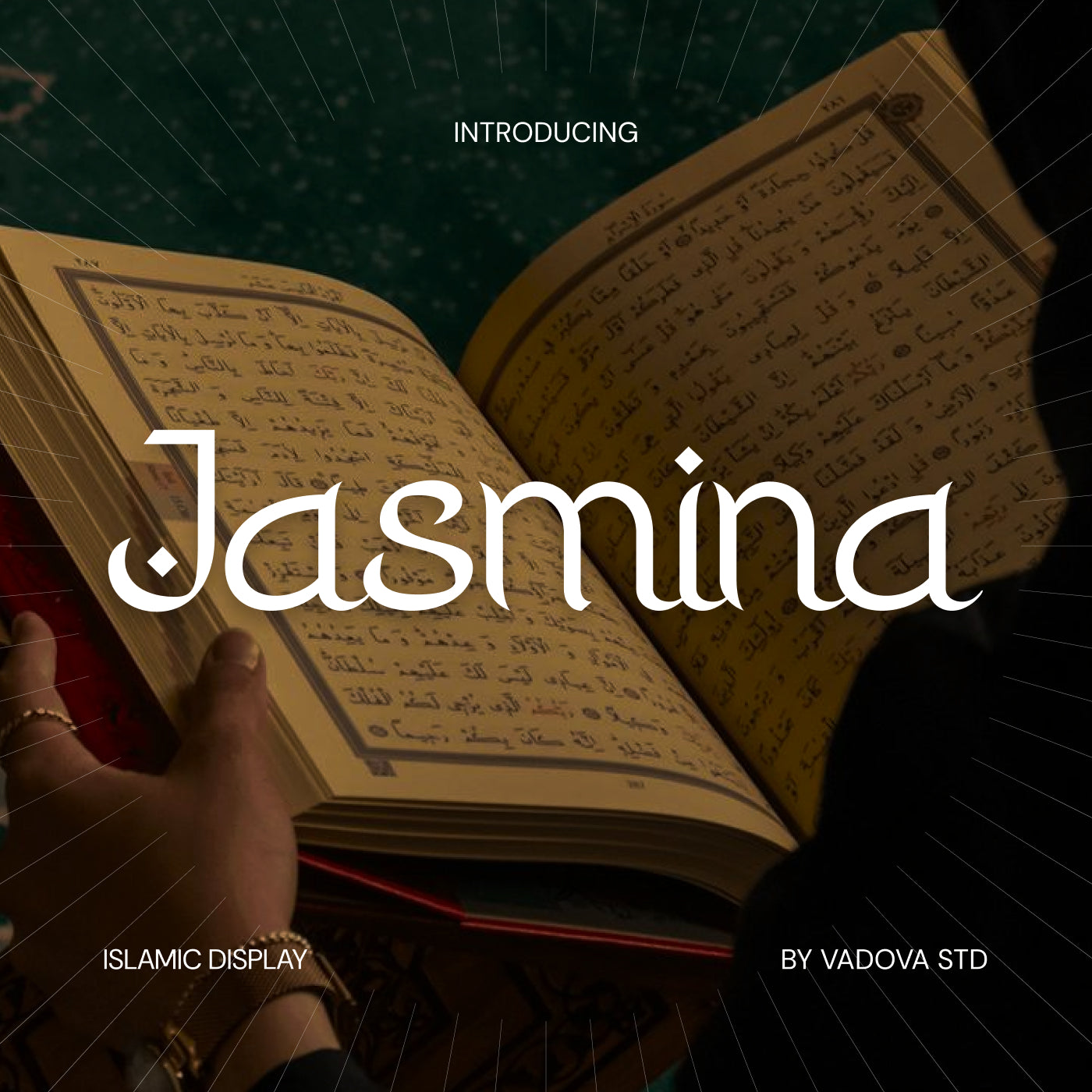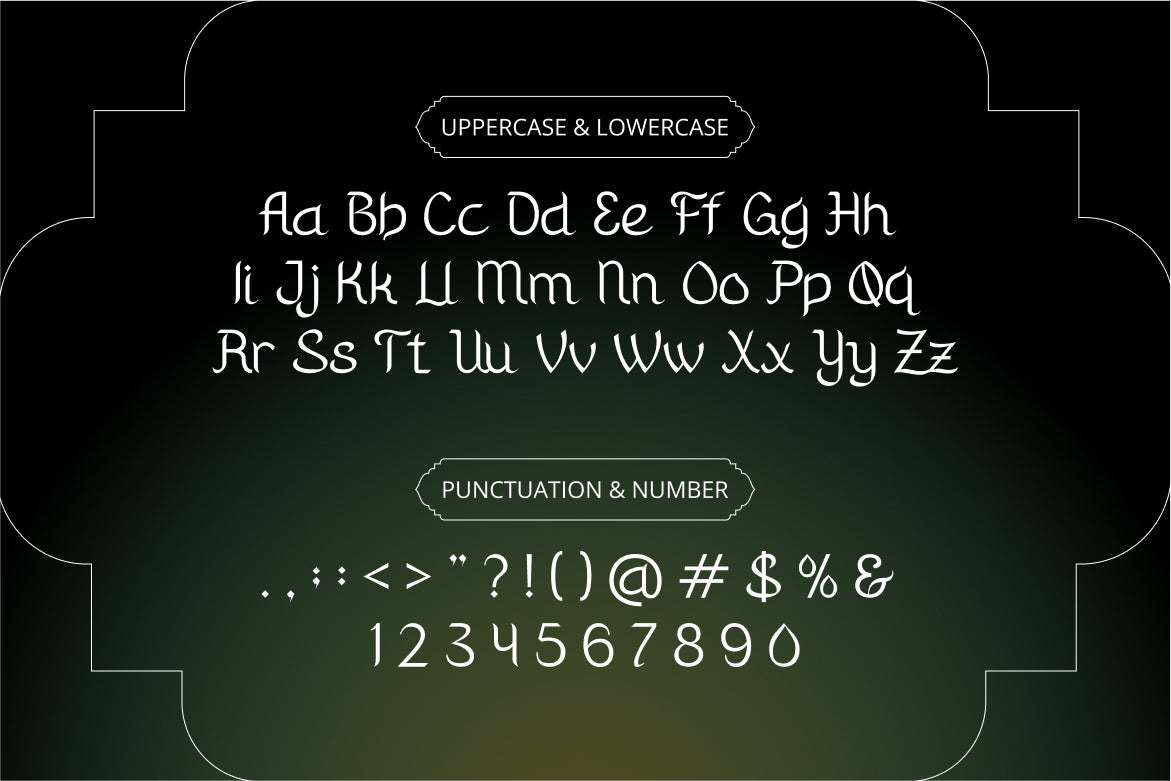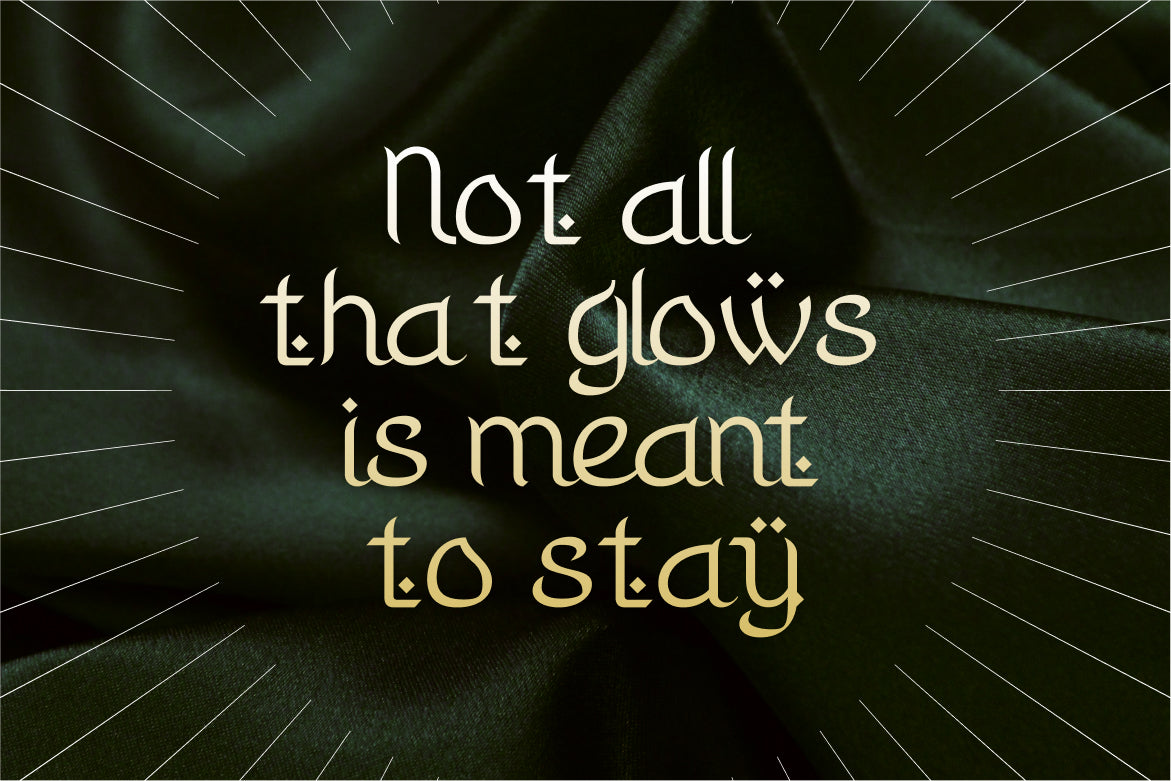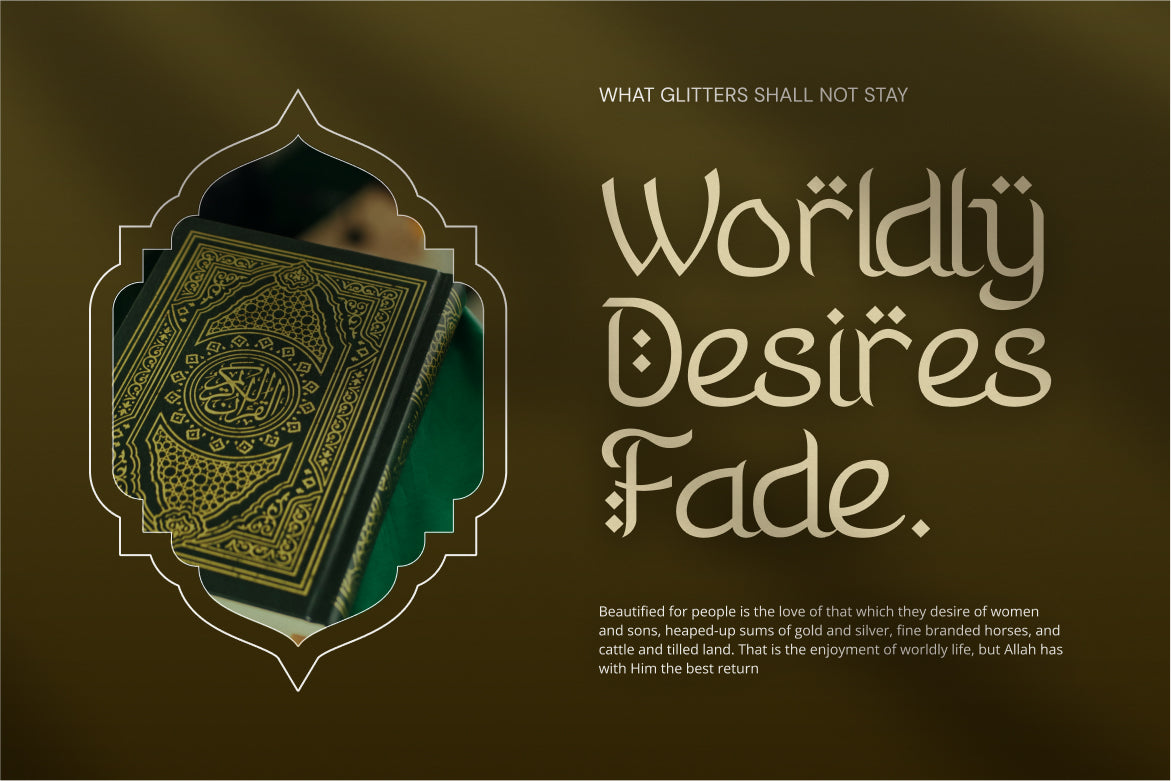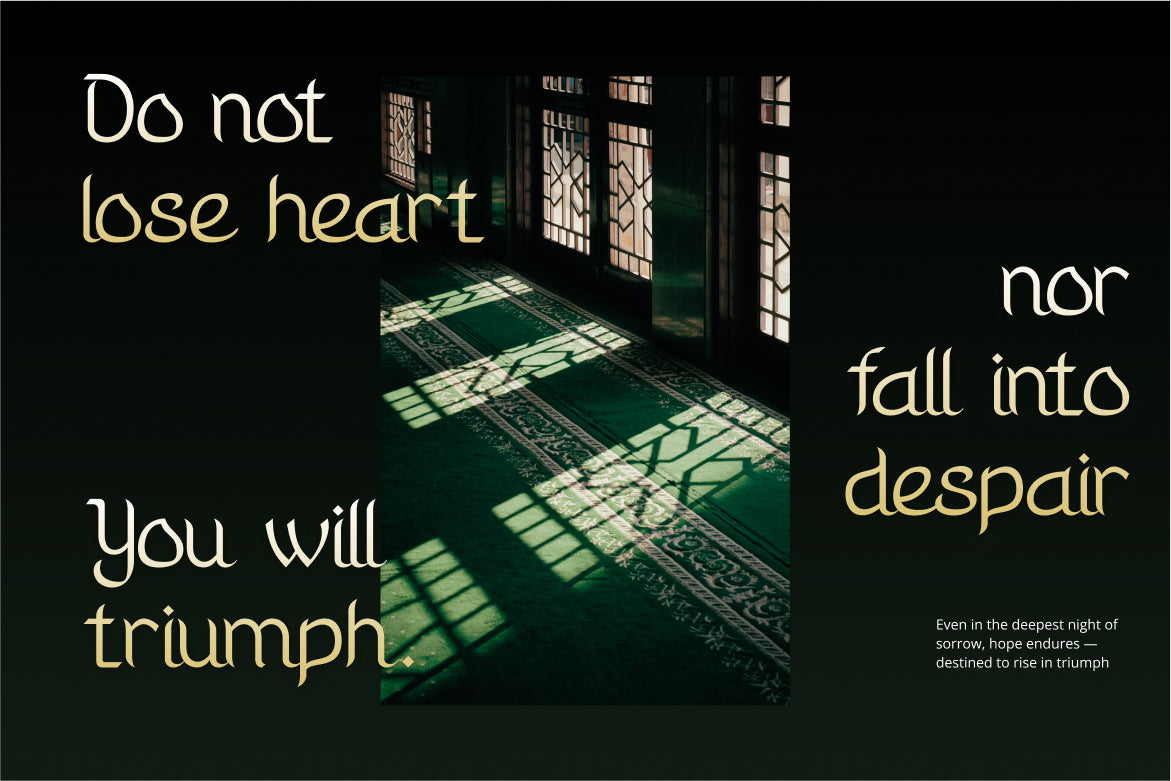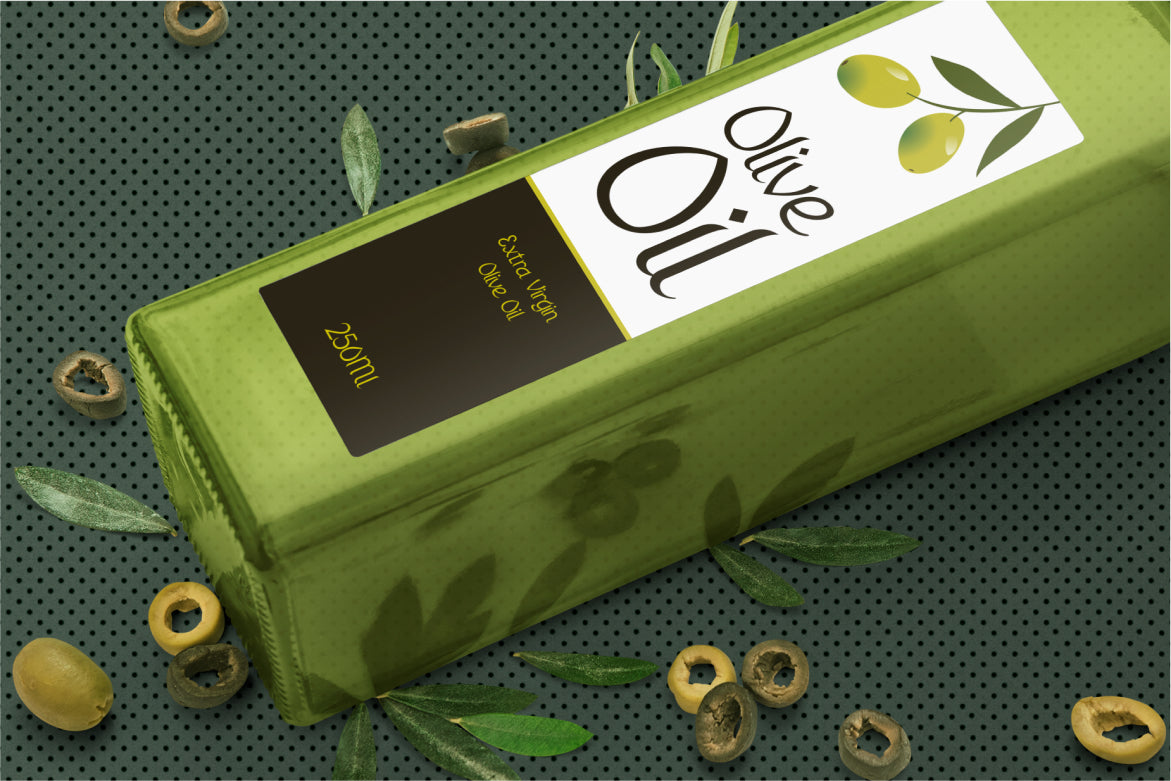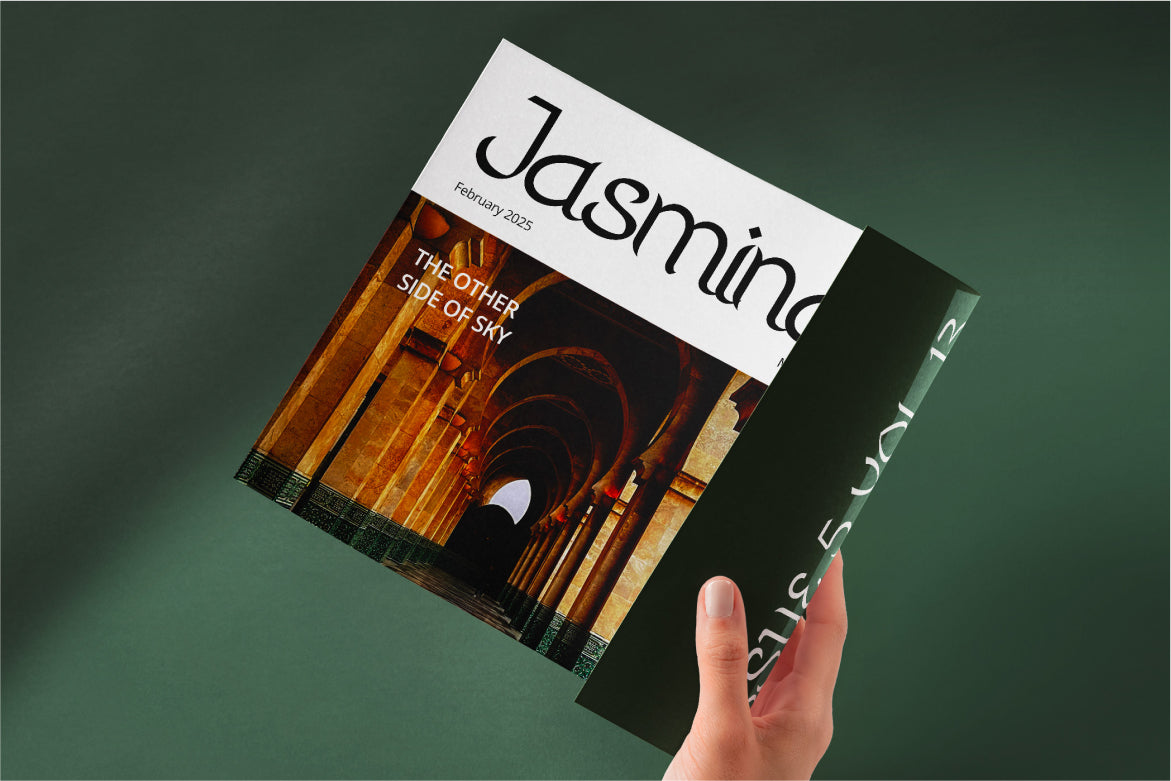
Jasmina Islamic Display Font
Jasmina Islamic Display Font is an elegant Islamic-inspired display serif that combines graceful typography with refined contemporary craftsmanship. Influenced by the flowing beauty of traditional Middle Eastern design, the typeface features soft curves, balanced proportions, and distinctive serif details that create a sophisticated and culturally inspired visual identity. Each character is carefully shaped to deliver a harmonious rhythm, allowing headlines and logos to appear both expressive and highly legible while maintaining a luxurious editorial presence.
Whether paired with clean sans serif typography for a modern composition or used as a striking standalone display face, Jasmia adds warmth, authenticity, and sophistication to every project. Its timeless character helps designers create visual identities that feel meaningful, refined, and memorable, making it an ideal typeface for brands and publications seeking to blend cultural inspiration with contemporary design excellence.
The Jasmina Islamic Display Font is an elegant serif typeface inspired by traditional Middle Eastern design, featuring soft curves and distinctive serifs for a sophisticated visual identity. It includes uppercase and lowercase characters, numerals, and punctuation, and is available in TTF, OTF, and WOFF formats.